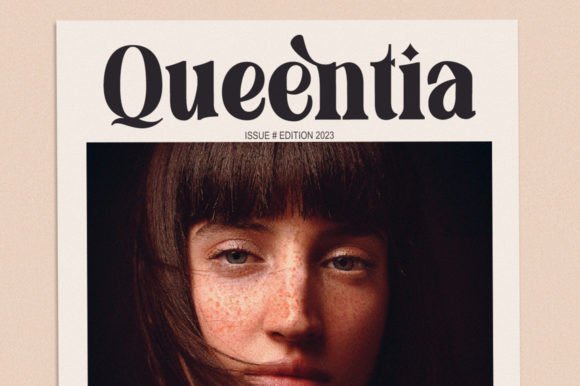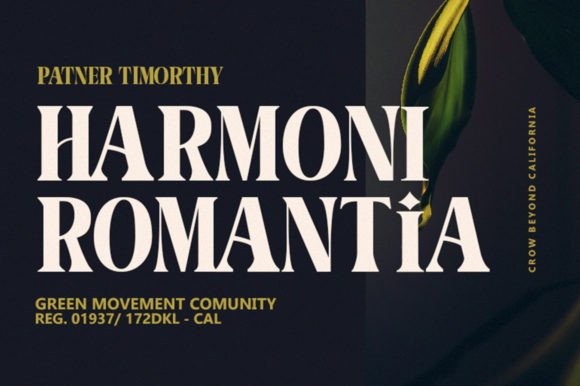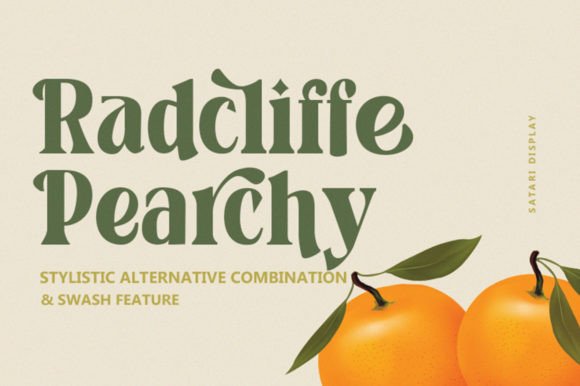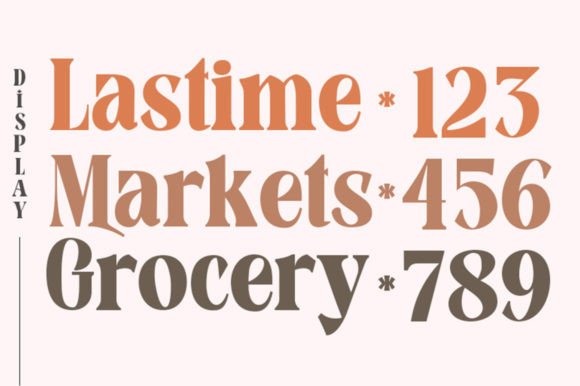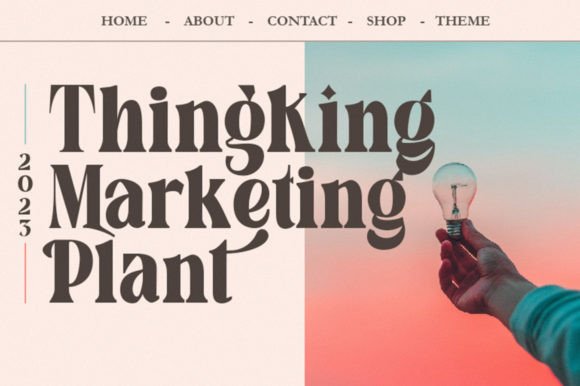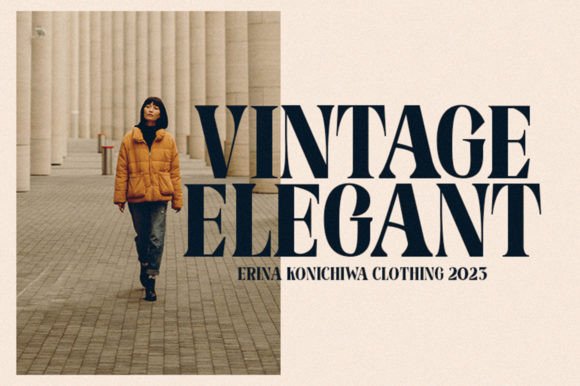
Introduction to Satari Font
Satari Display is a fancy, bold font with multilingual support.
This is a very versatile font that works well in both large and small sizes Satari Display is perfect for branding projects, logos, wedding designs, social media posts, advertisements, product packaging, product design, labels, photography, watermarks, invitations, or any project youโ€™re working on.
Key Features of Satari Font
Why Choose Satari Font?
Satari Font offers exceptional quality and versatility, making it a valuable addition to your design toolkit. Whether you’re creating for personal projects or commercial use, Satari Font delivers professional results.